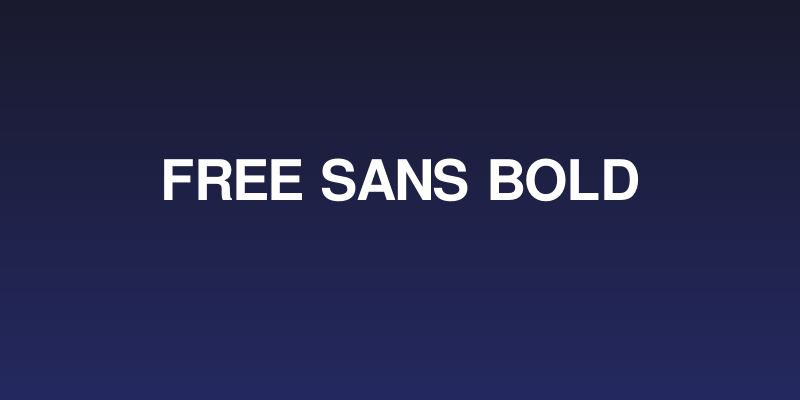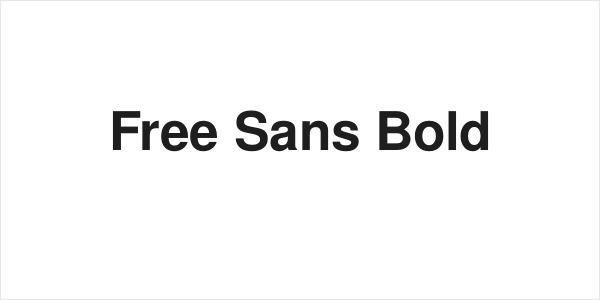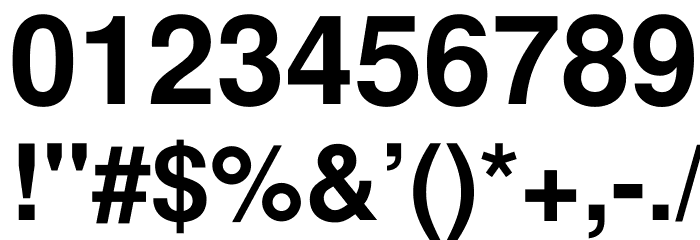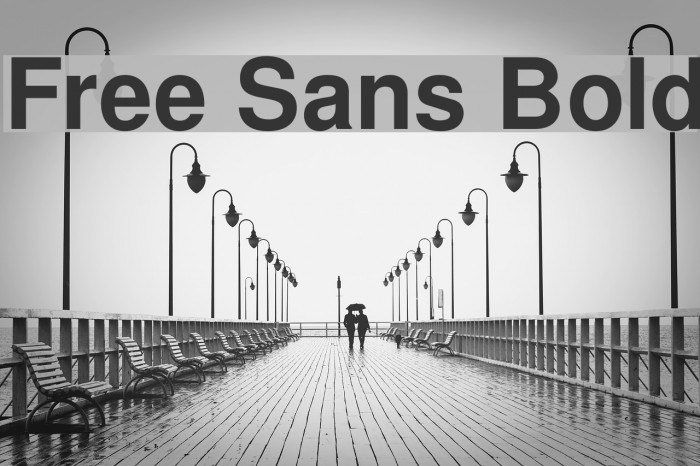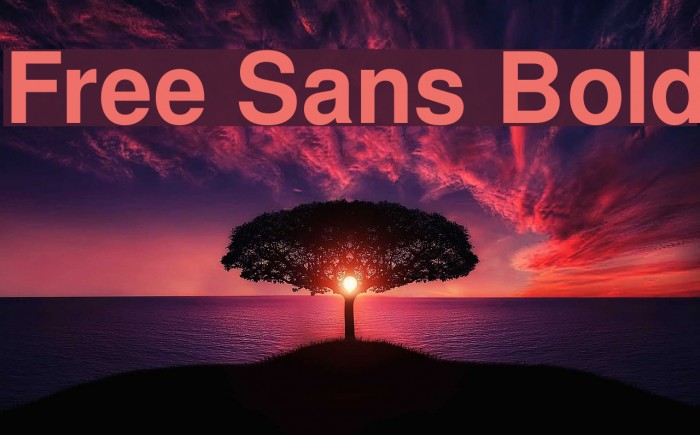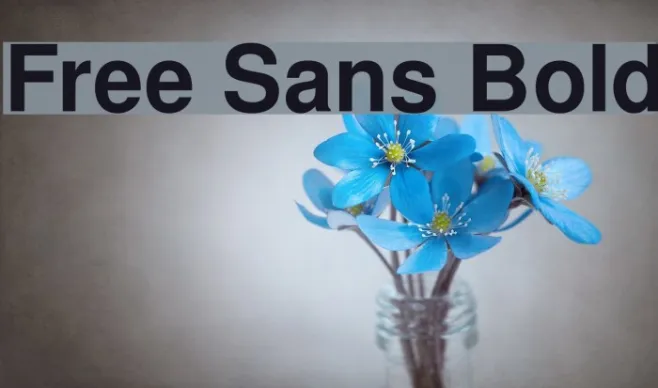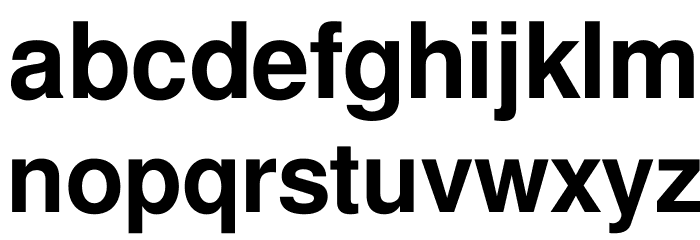
Free Sans Bold Font
Free Sans Bold Description
This font features a bold and clean sans-serif style, characterized by its straightforward and modern appearance. The letters are evenly spaced with a consistent stroke width, providing a balanced and harmonious look. The uppercase and lowercase letters are well-proportioned, making it suitable for a wide range of applications. The numerals are clear and legible, while the special characters are distinct and easily recognizable. This font's simplicity and clarity make it versatile for both digital and print media.
| Proposed Projects | Ideal for branding, advertising, web design, and editorial layouts. |